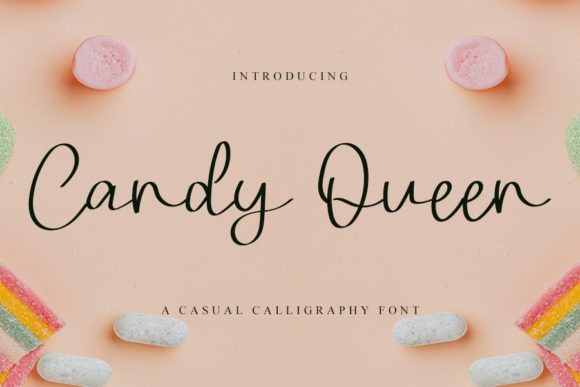
Candy Queen Font
Candy Queen Script Font is a lovely and delicate script font that exudes elegance and class. This font was particularly crafted for those who need a beautiful and refreshing look to their designs.